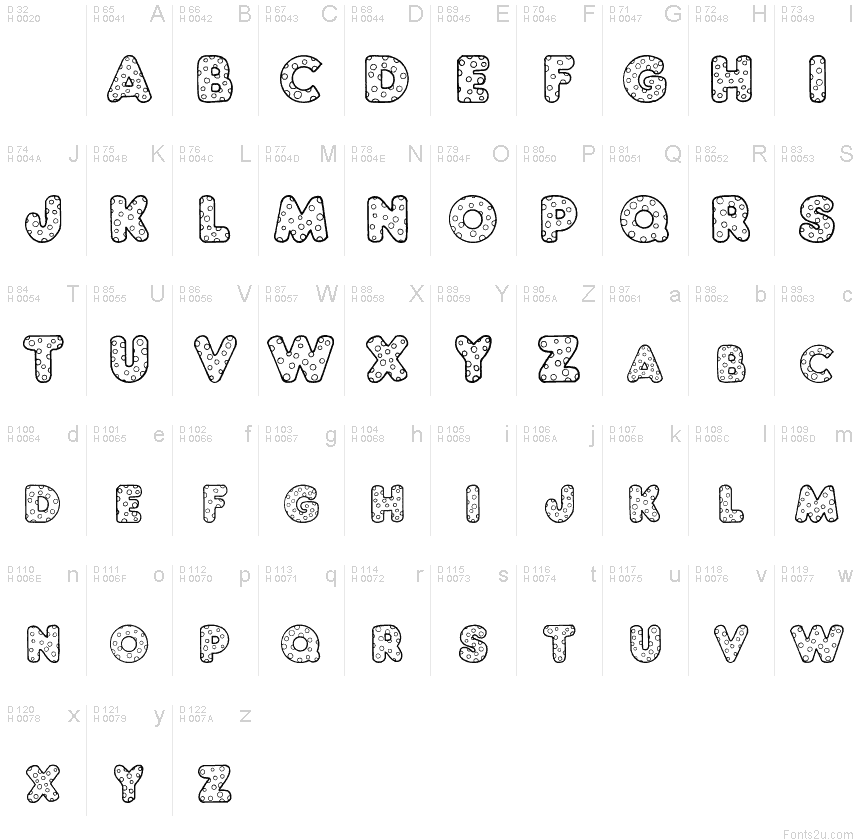
Chubby Dotty
Chubby Dotty font by House Of Lime is a free decorative display typeface that looks like it’s been puffed up and punched full of playful bubbles. Bold, rounded outlines wrap around a scatter of dots that feel like fizzy soda or Swiss cheese, giving every word a light, bouncy energy. The hand-drawn wobble keeps it friendly and approachable rather than slick or polished.
Using Chubby Dotty, headlines instantly grab attention without feeling shouty, which works beautifully for kids’ posters, party invitations, birthday cards, toy packaging, comic titles, and sticker designs. This free font shines at large sizes where the dots can really breathe; pair it with a simple geometric sans for body text to keep layouts fun but readable.